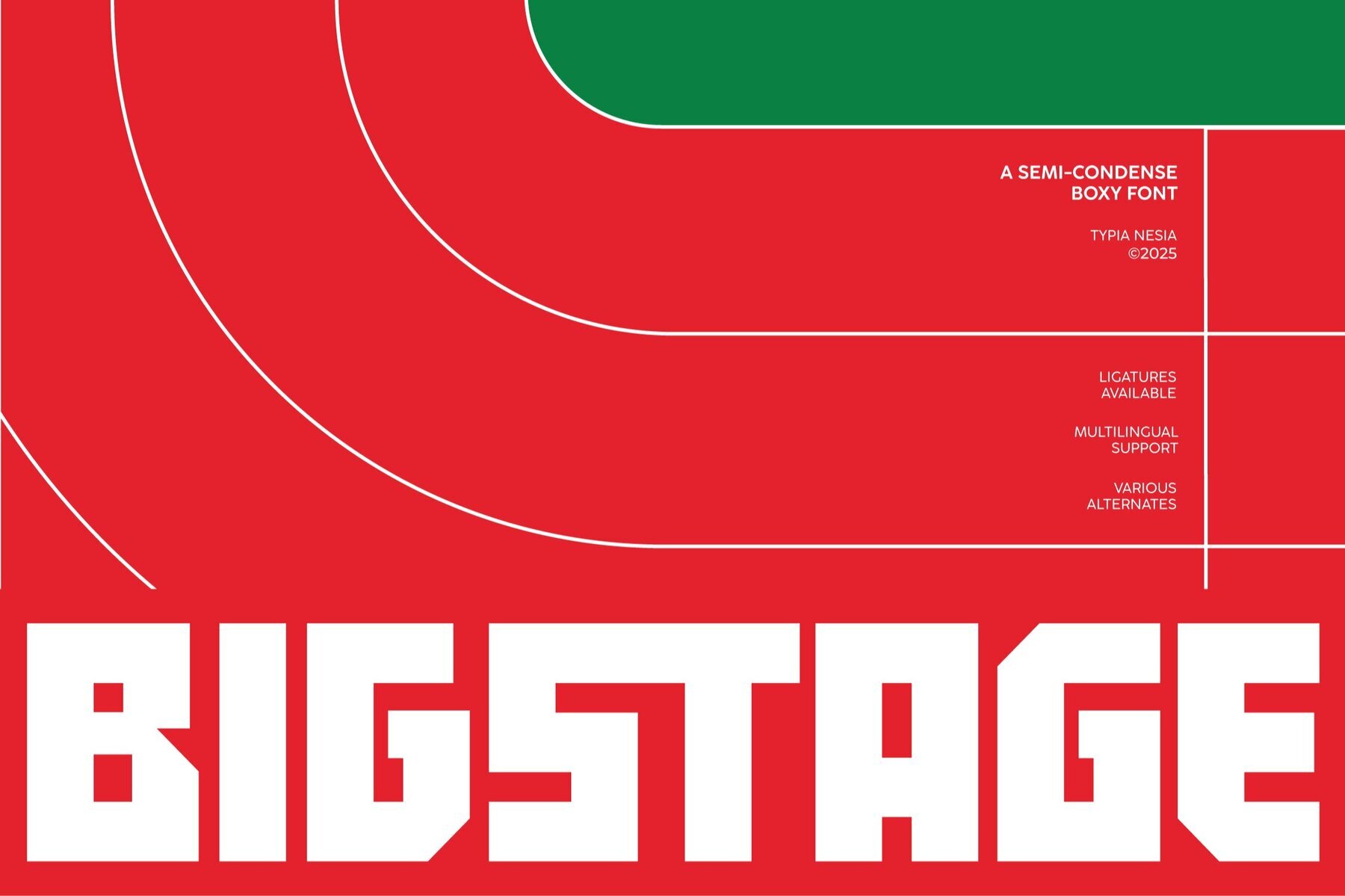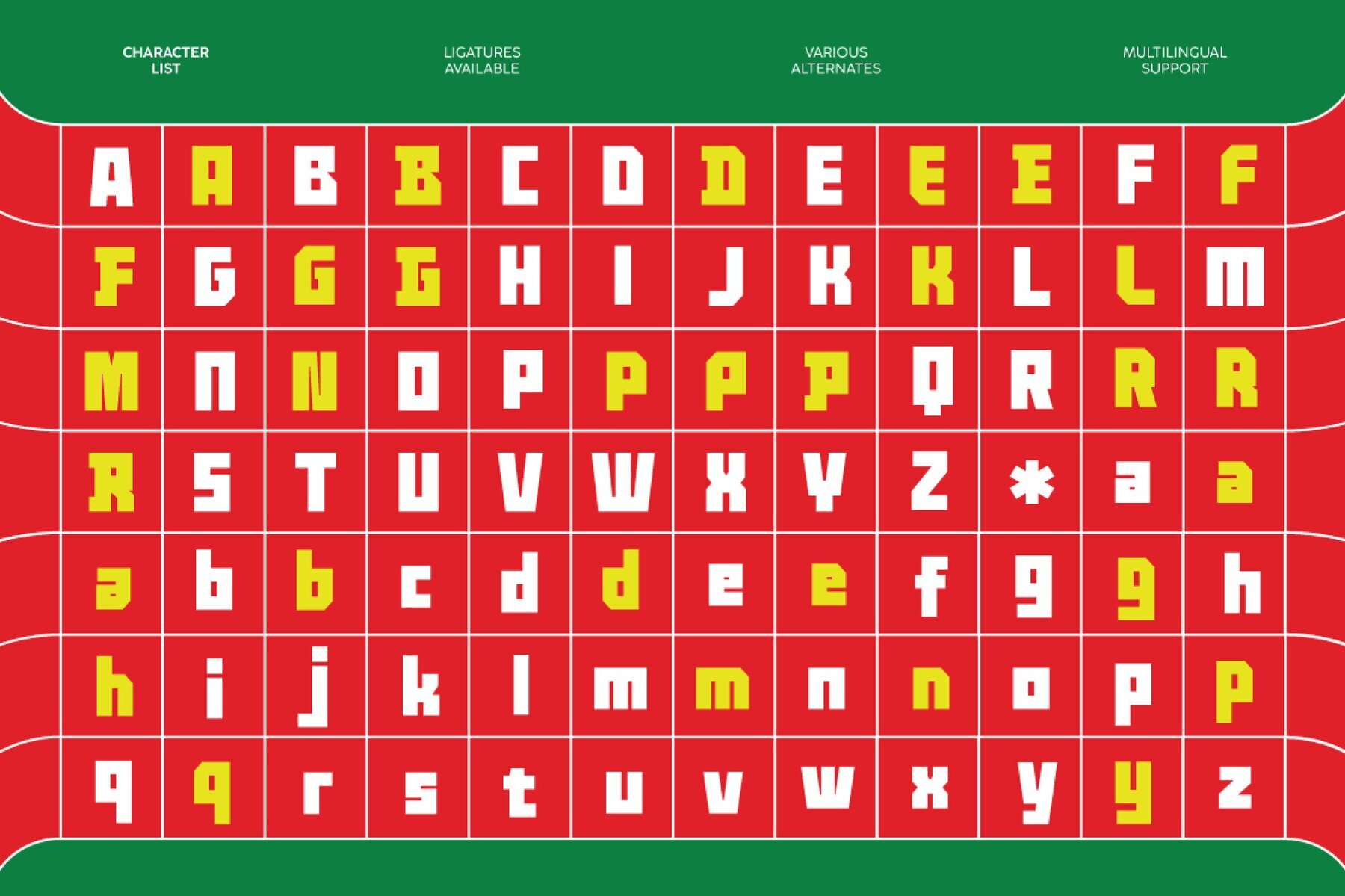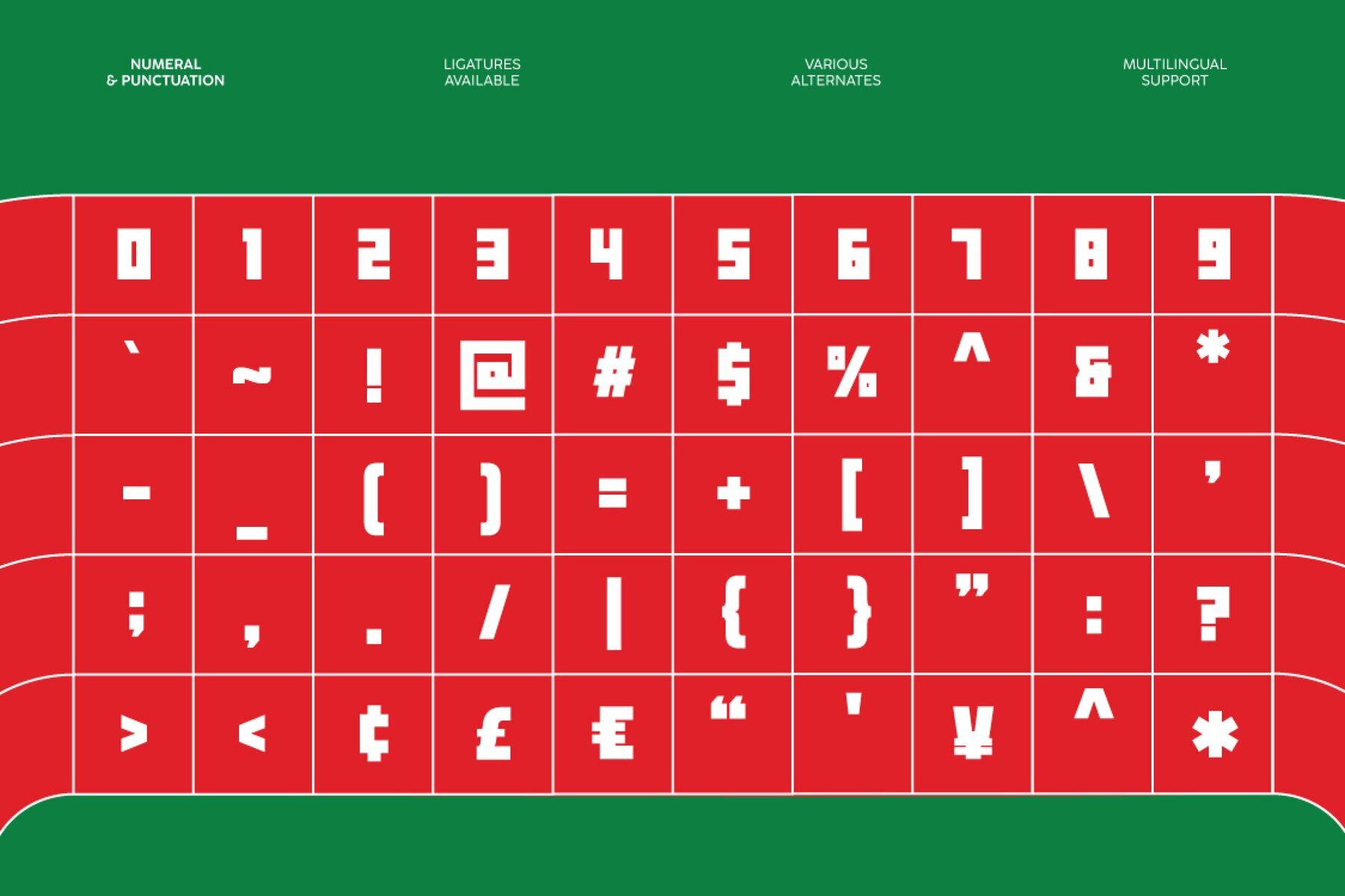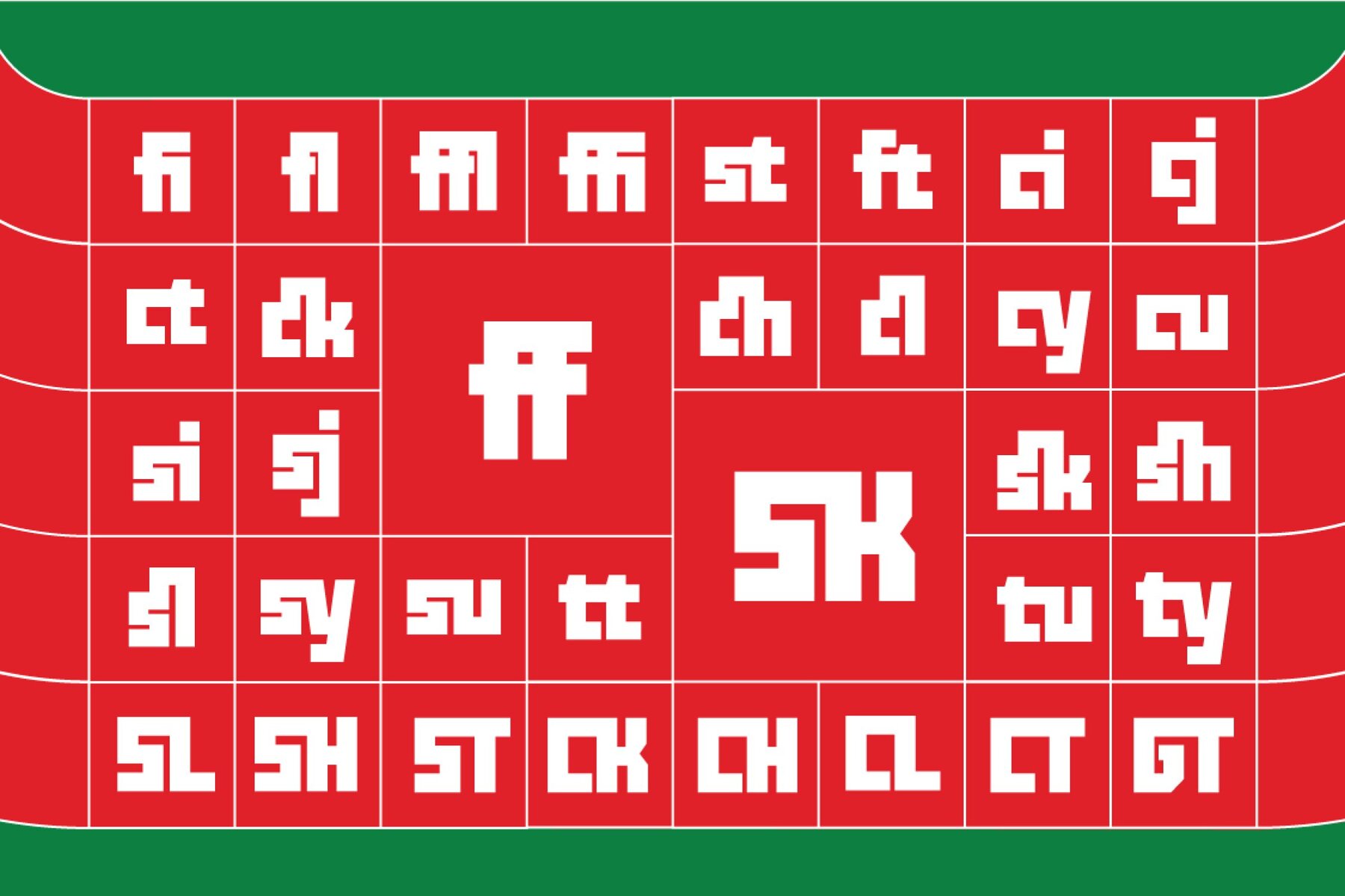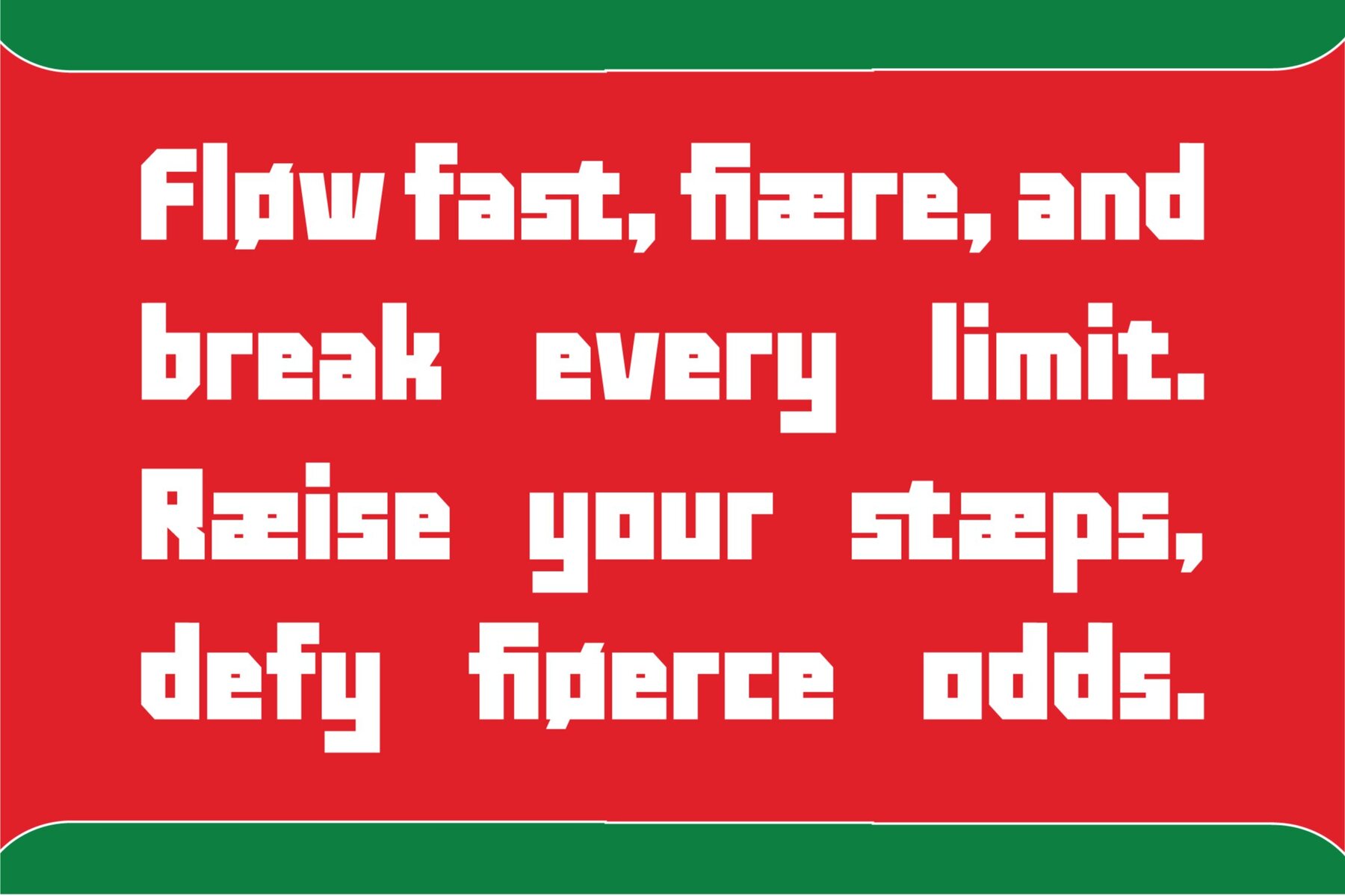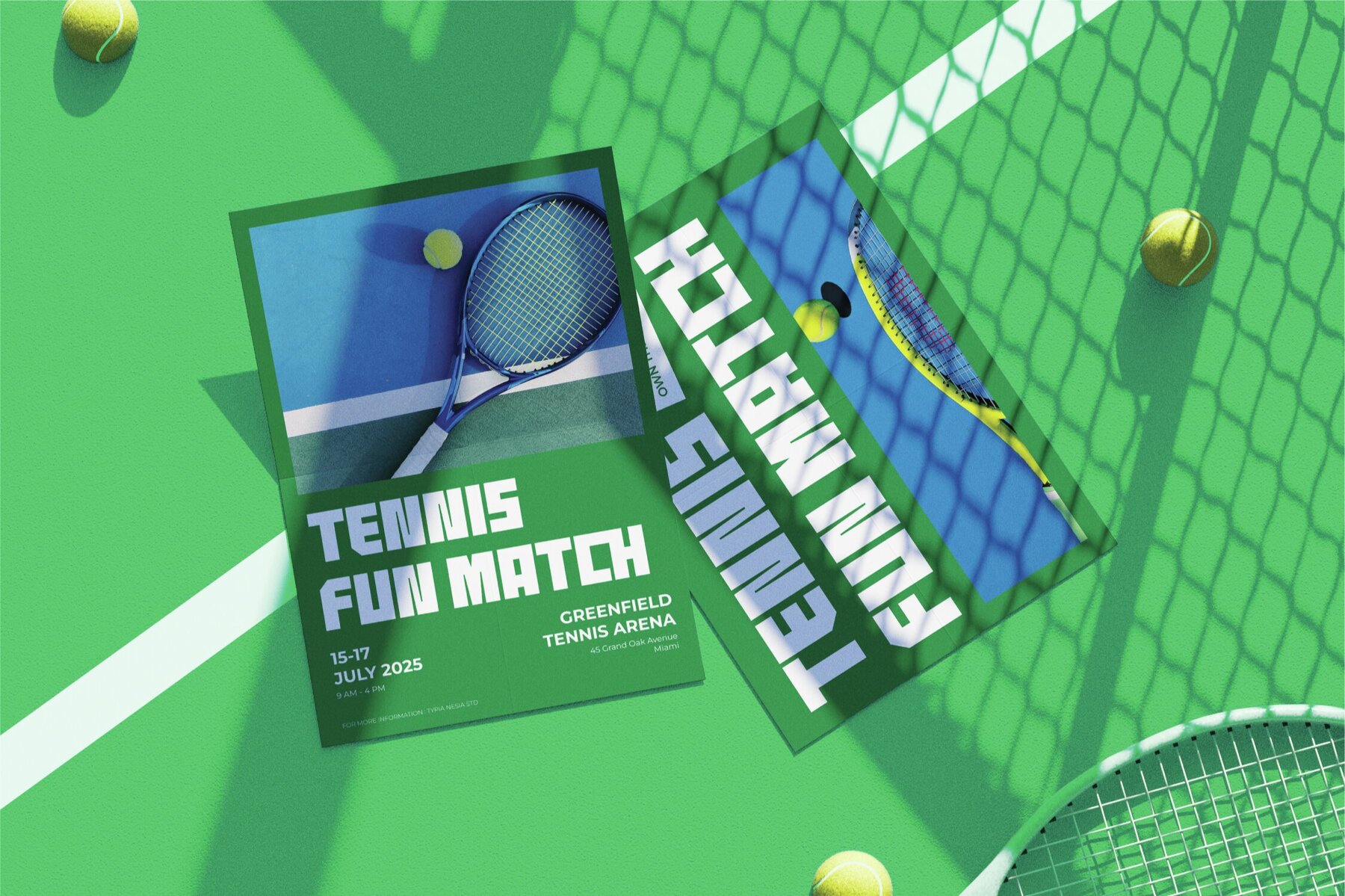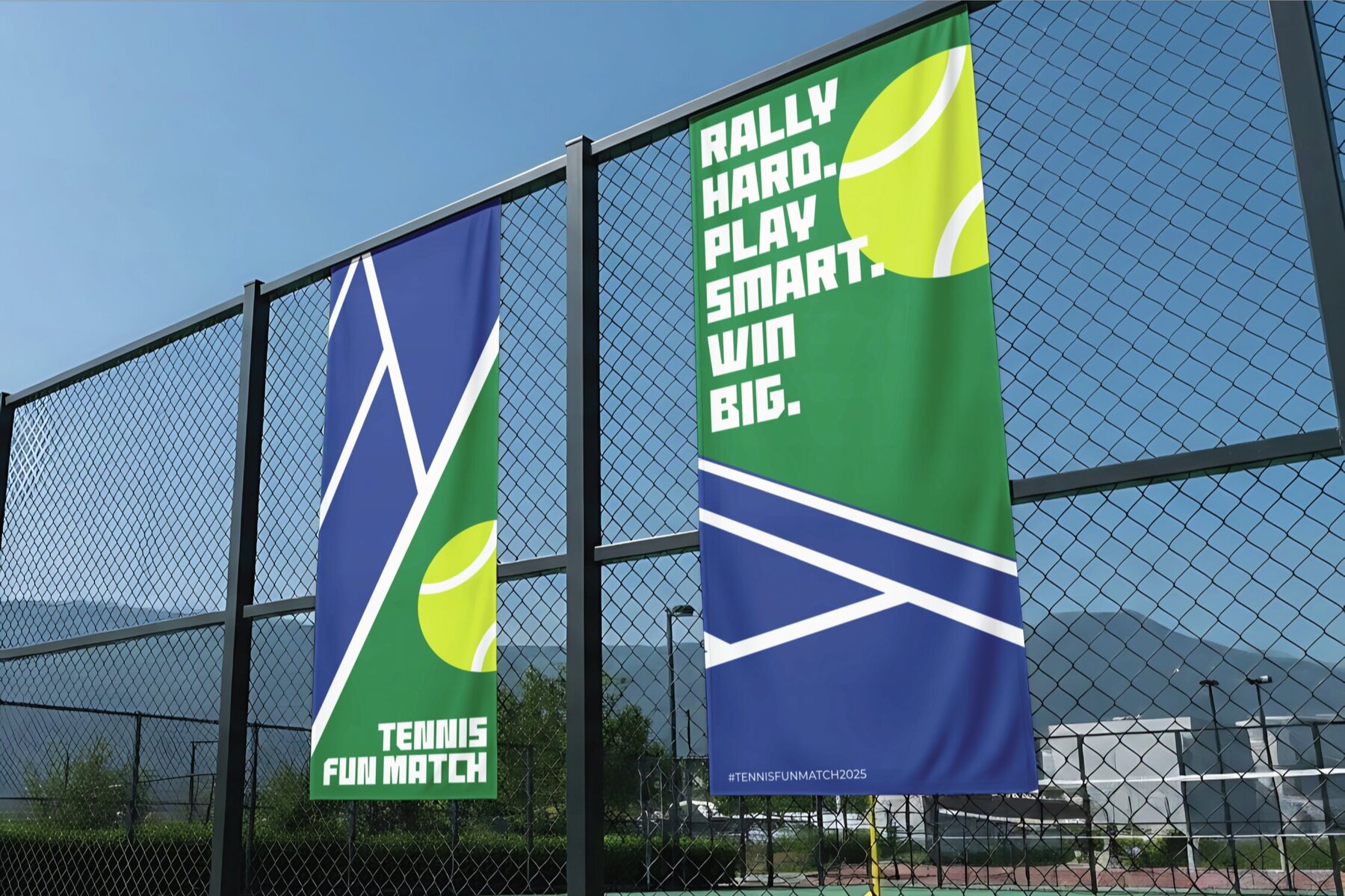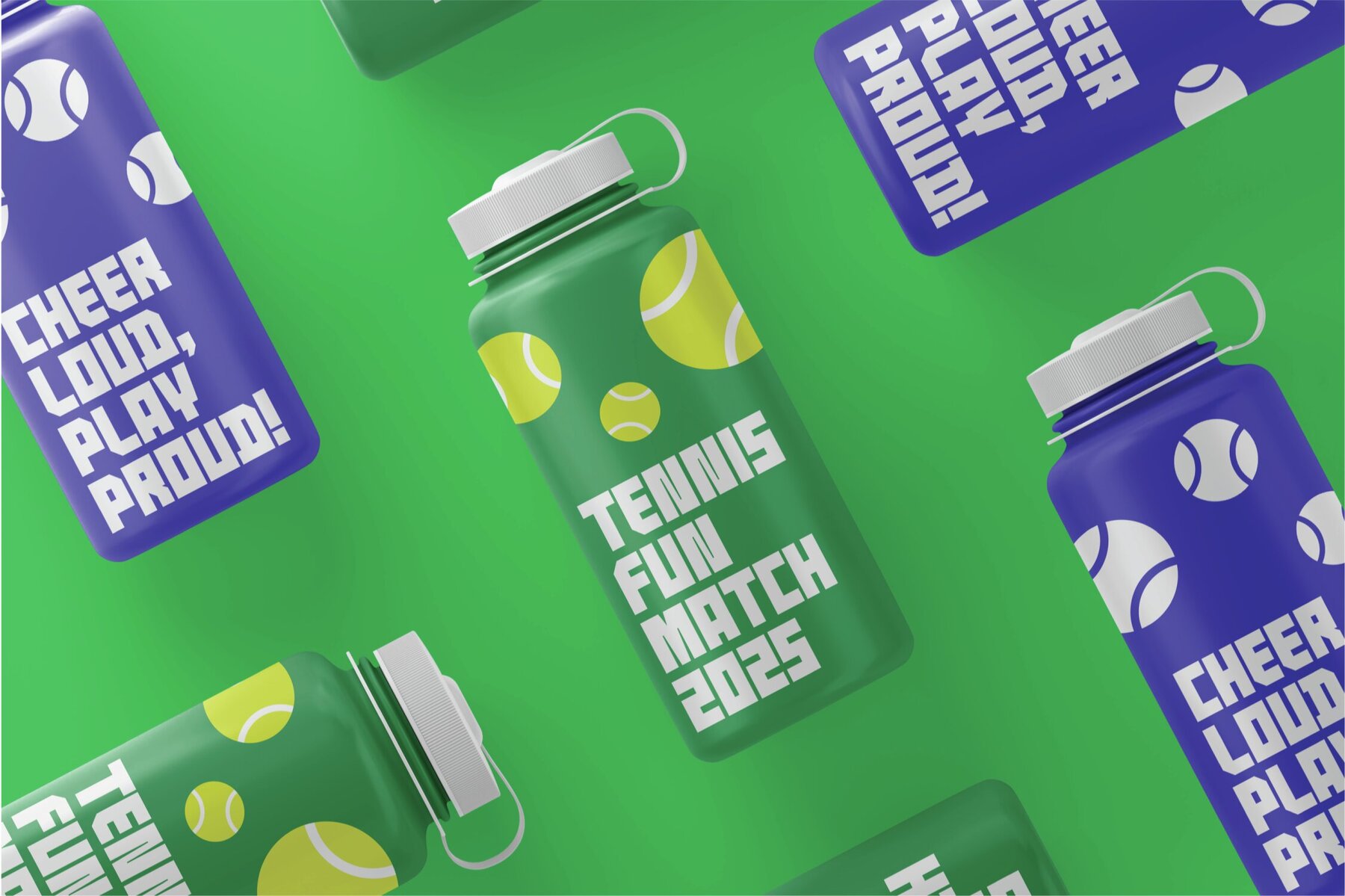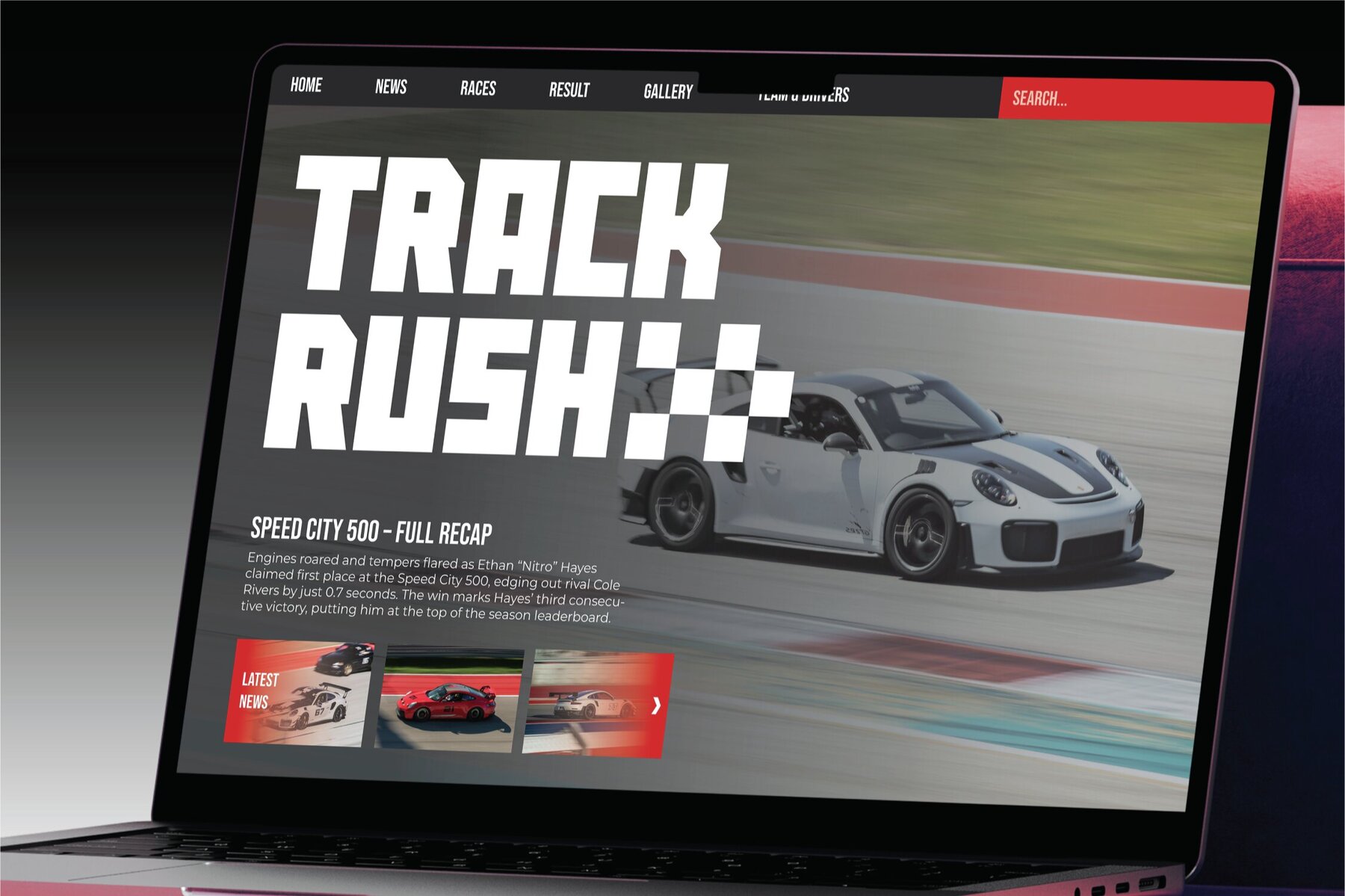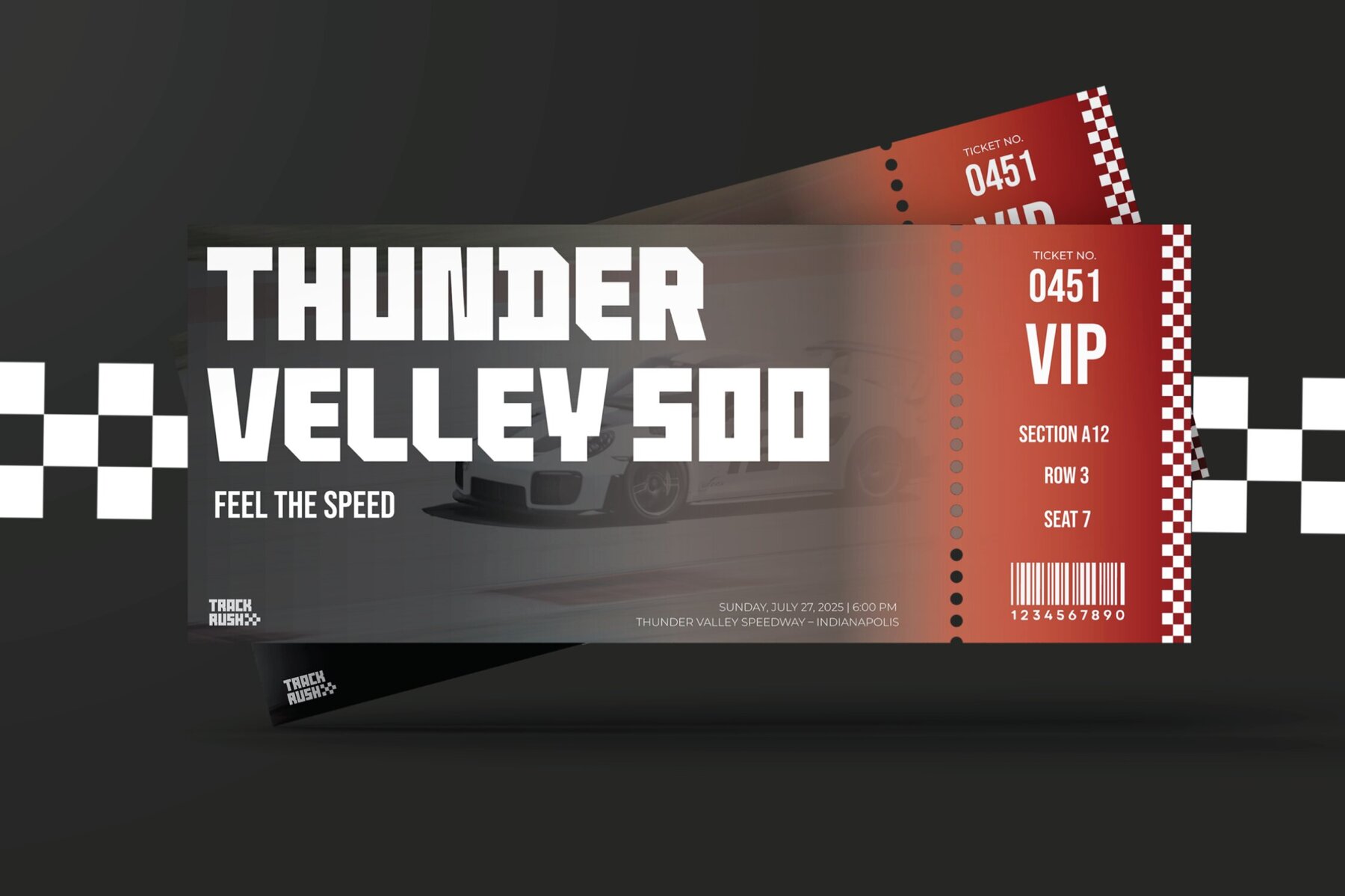
Bigstage Font
Bigstage Regular
Bigstage is a bold and commanding semi-condensed boxy display font designed to make a statement with its strong, geometric appeal. Its robust and impactful letterforms make it ideal for sports branding, race event posters, advertising campaigns, logos, merchandise, and urban-themed designs—all needing a touch of speed and strength. Crafted for prominence, Bigstage ensures your designs are unmistakable with striking headlines and formidable logos. Download Bigstage now and infuse your projects with the powerful presence they deserve!Bigstage: A Bold Semi-Condensed Display Font